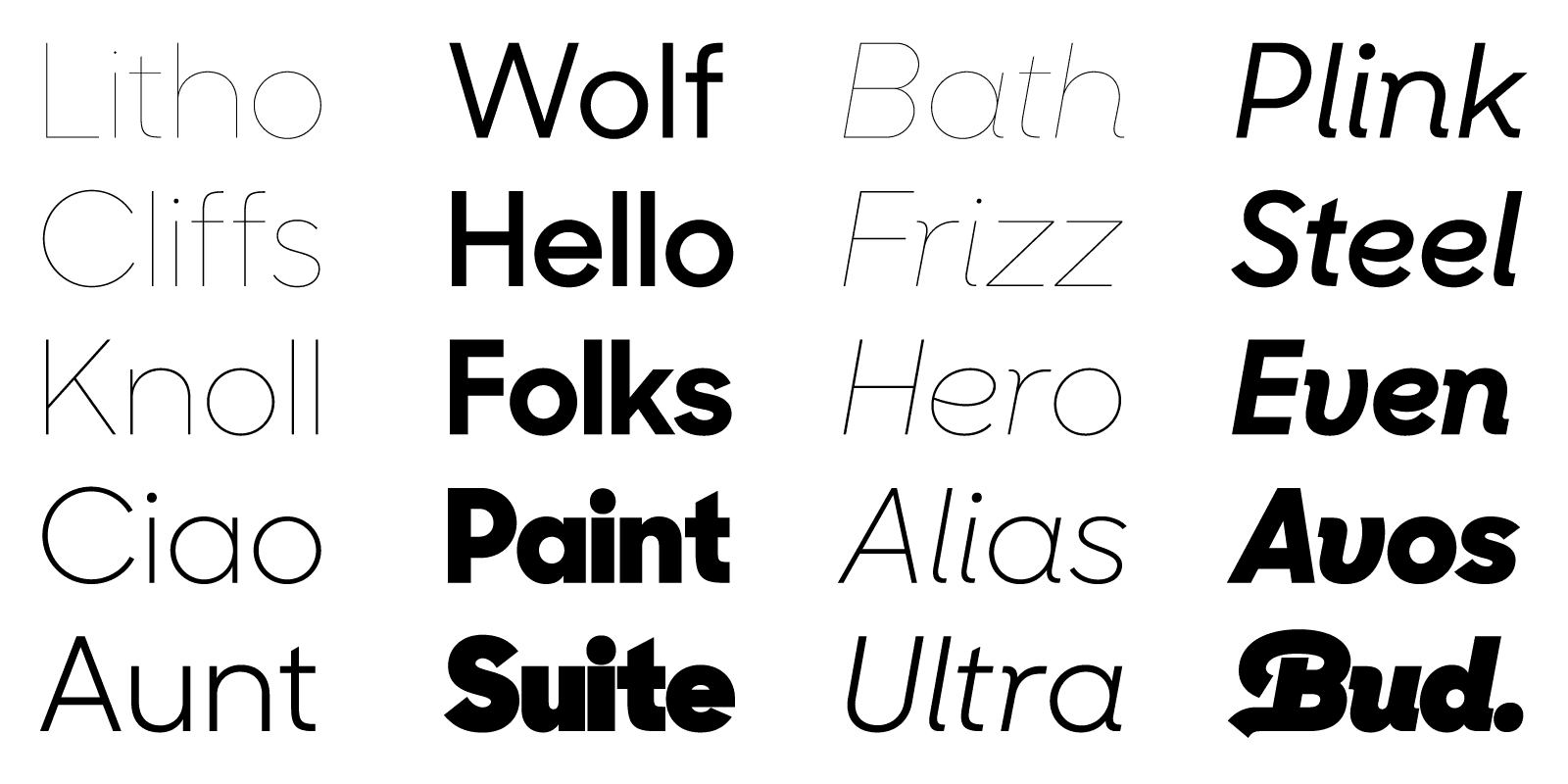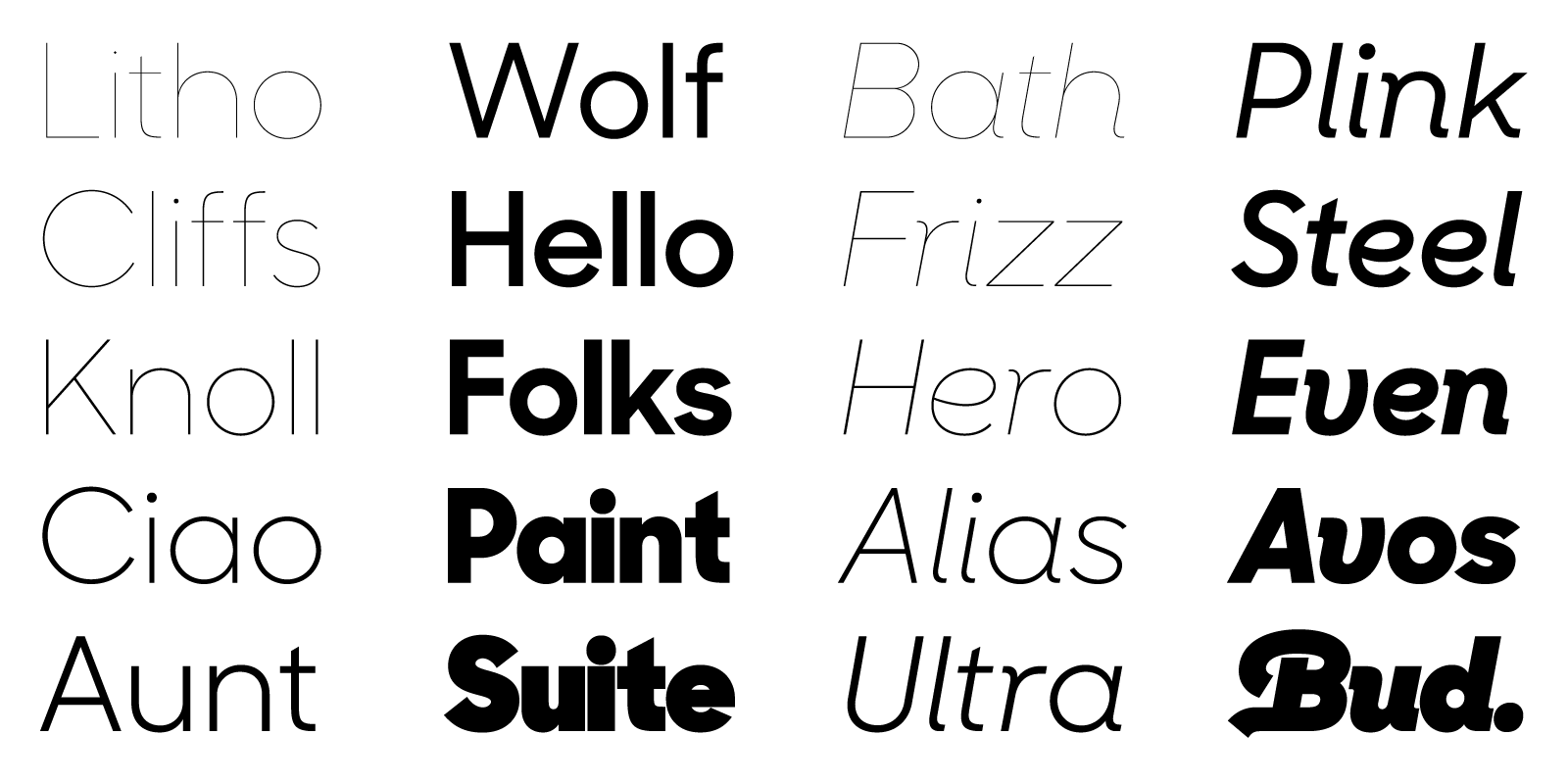
Q&A with Lucas Sharp
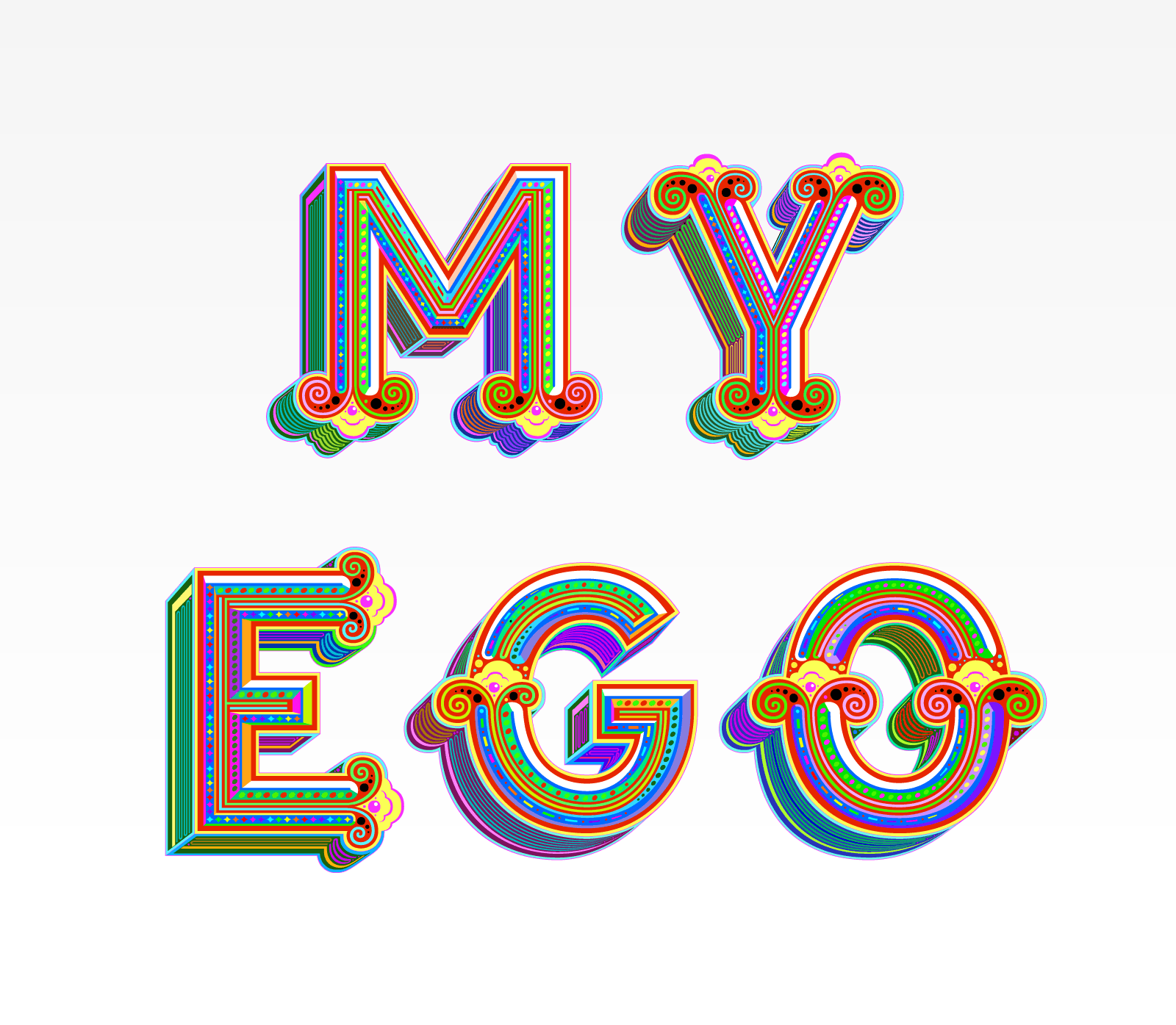
We have a cracker of an interview for you this week. We chatted with the very talented Lucas Sharp, and thoroughly enjoyed reading through his insightful answers. It’s clear from the time and passion he put into these words how much more he must put into his work as a type designer. Lucas has worked as a draftsman under Joshua Darden at Darden Studio, founded Pagan & Sharp Studio with Juan Carlos Pagan in 2011 and now runs Sharp Type, a digital typeface foundry, with partner Chantra Malee. One of their typefaces, Sharp Sans, is being used as the main typeface for the Hillary Clinton 2016 campaign.
“For me, typography is a practical way to explore 2-dimensional form in a way that is immensely satisfying and also useful to others.”
— Lucas Sharp
Sharp Sans, an iteration of which was used (under the name Unity) by renowned design consultancy Pentagram for the Hillary Clinton 2016 campaign.
What is it you like about typography?
Lucas Sharp: For me, typography is a practical way to explore 2-dimensional form in a way that is immensely satisfying and also useful to others. Before I got into typography I was a painter and I always had an immense interest in contour lines and defining negative/positive space. My work in typography has always been about form and beauty. I’ve only recently began to really understand and appreciate the design and engineering aspect of it, so my early work was less practical and more display oriented. Love of form, of balanced and compelling form is still the driving factor in my work, but I do have a great appreciation for the utilitarian aspect of the craft as well.
“…convention is so important in typeface design that a good typeface designer must in a certain way let go of this idea of originality almost entirely to really learn the craft, then you can begin to break the rules again once you understand them.”
— Lucas Sharp
Has your creative process changed over the years?
I would say my creative process has more than anything just been moved from the physical to the digital realm. Before I was a typeface designer I was a painter, and there was a time early in my career in typeface design that I would sketch letters with a pencil before executing them digitally. Now I am so fluid in the digital medium it is honestly faster to just draw straight into fontlab with my mouse and keyboard. This is why I am in the digital type stone age and still use fontlab instead of Robofont. Robofont has this millisecond delay on the arrow point nudge which slows me down so significantly that I just cant stand it; it’s like running with a backpack full of rocks.
I do think that one must have a great understanding of calligraphy to be a good typeface designer, but as long as you understand in your bones what the tool is doing to create the letters, you can execute those letters digitally without it. I rarely have a “blank page” anymore as I have started so many typefaces that I intend to finish and they take so long and I always end up expanding them beyond what I originally thought was possible. But when I do have a “blank page” and want to brainstorm new ideas I still do like to bust out the sketchbook and do some drawing, but that is only for when I don’t exactly have an idea of what I want to do.
Logotype jobs still involve a lot of sketching with pencils. Mostly I get sidetracked while working on a font with a new idea clear in my head and I just have to get it down somewhere, and that form is almost always digital. I’ve also had a profound change in my creative process that has been a byproduct of learning the craft of typeface design. This is the act of looking outward for ideas and actively seeking direct inspiration, then simply re-executing it in my own style with my own sensibilities. This was something that was an early part of my artistic development, but as I got better I felt an internal stigma about being super directly influenced by another artists aesthetic, and tried my best to find my inspiration through my own experiences, even if avoiding the aesthetic influence of work that really gets you is impossible.
Name something that inspires you.
I think I accidentally answered this in my answer to question 4! Besides all the things I mentioned there I would say my greatest inspiration and creative fuel is Music. I’m writing this now in a hotel lobby in Benicassim, Spain where I am doing the FIB music festival to see Jamie XX, DeLorean, and a bunch of others but mostly Kendrick Lamar. I think I am getting a bit old for the whole music festival lifestyle but its still fun to dance, experience all the amazing artists here, and watch all the teenagers going absolutely crazy with that amazing energy you have at that age. Music is one of those mediums where our best selves and truest expressions of humanity can come out, and it is a wonderful mixing pot of cultures and perspectives. I love seeing the way genres and traditions are reacting to and influencing each other these days. The two genres I am most obsessed with right now are modern and experimental electronic, techno, minimal, etc. and black music: African, Afrobeat, Malinese, Jazz, Hip-hop, Soul, Funk etc.